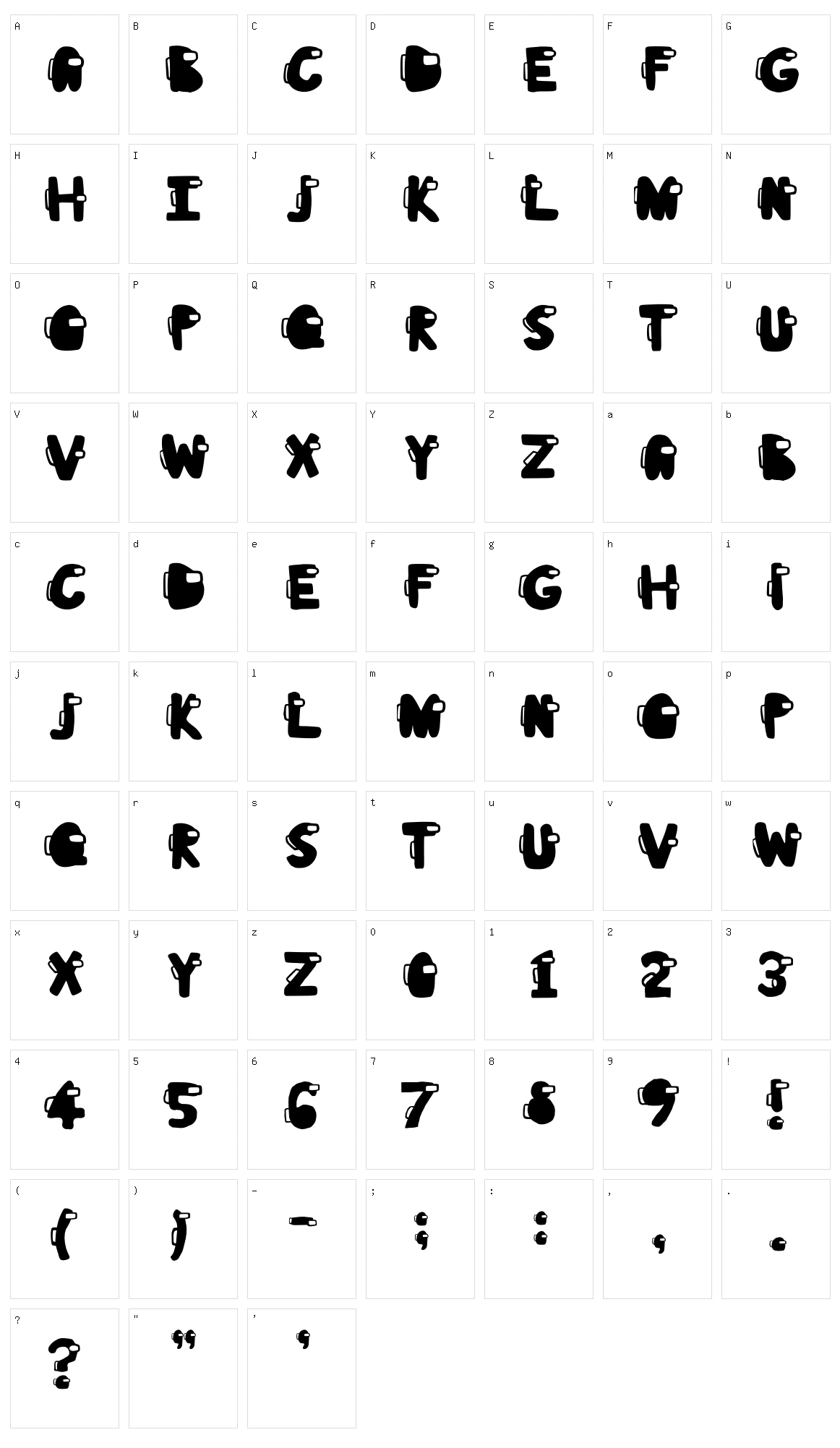
Among Us Filled v0.1
This font was quickly whipped up specifically for an April Fools' joke.
It is modified from the original Among Us font by Leona Sky found at: https://www.dafont.com/among-us.font, and adds numbers, some basic punctuation, and a lowercase "i".